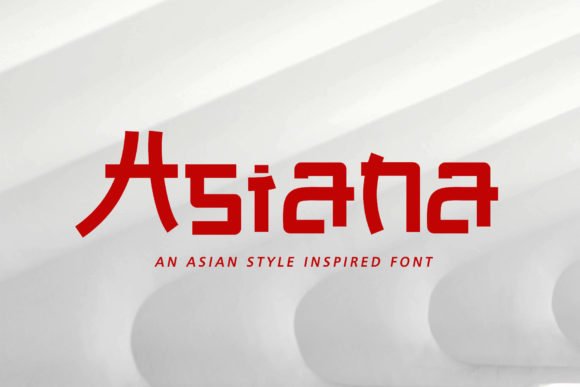
Bring the Vibrant Spirit of Asia to Your Designs
You know that moment when you’re brainstorming ideas for a new project, and suddenly, a spark of inspiration hits you? It could be the sound of traditional Chinese instruments, the vibrant colors of a Japanese festival, or the intricate patterns of an Indian textile. For me, it’s the feeling of embarking on a culinary journey through Southeast Asia, where every dish is a symphony of flavors and aromas.
As I sat down to create a design for a Chinese New Year card, I stumbled upon the perfect font to capture the essence of the season: the Asiana Font. This stunning Asian-style-inspired display font is not just a decorative element, but a way to connect with the rich cultural heritage of Asia. Whether you’re designing a brand, logo, or event invitation, the Asiana Font adds a touch of elegance and sophistication that’s sure to leave a lasting impression.
Asiana Font Key Features
- Font Family: Asiana Font is a Korean font family designed for use in various digital applications.
- Language Support: Asiana Font supports the Korean language, making it an ideal choice for Korean-language content.
- Unique Characteristics: The font features a modern and elegant design, with subtle curves and lines that give it a distinctive look.
Asiana Font Review
Overall, I have mixed feelings about the Asiana Font. While it has some unique qualities, it’s not without its limitations.
- Unique aesthetic: The Asiana Font has a distinct, Eastern-inspired design that can add a touch of elegance to any project.
- Customizability: The font is available in multiple styles and weights, making it easy to customize to suit your needs.
- Legibility: Despite its ornate design, the Asiana Font is surprisingly legible, even at smaller font sizes.
- Limited language support: The Asiana Font may not be suitable for projects that require support for non-Latin languages.
- Not ideal for body text: While the font is legible, it’s not the most readable choice for large blocks of body text.
- Can be overwhelming: The font’s ornate design can be overwhelming in certain contexts, making it difficult to read.
Overall, the Asiana Font is a great choice for projects that require a unique, elegant touch. However, it’s not a good fit for every project. Be sure to carefully consider the limitations before using it in your design.
The Asiana font is a elegant and sophisticated font, making it ideal for use in:
- Editorial and publishing projects
For the best results, use the Asiana font in conjunction with a clean and simple design aesthetic.